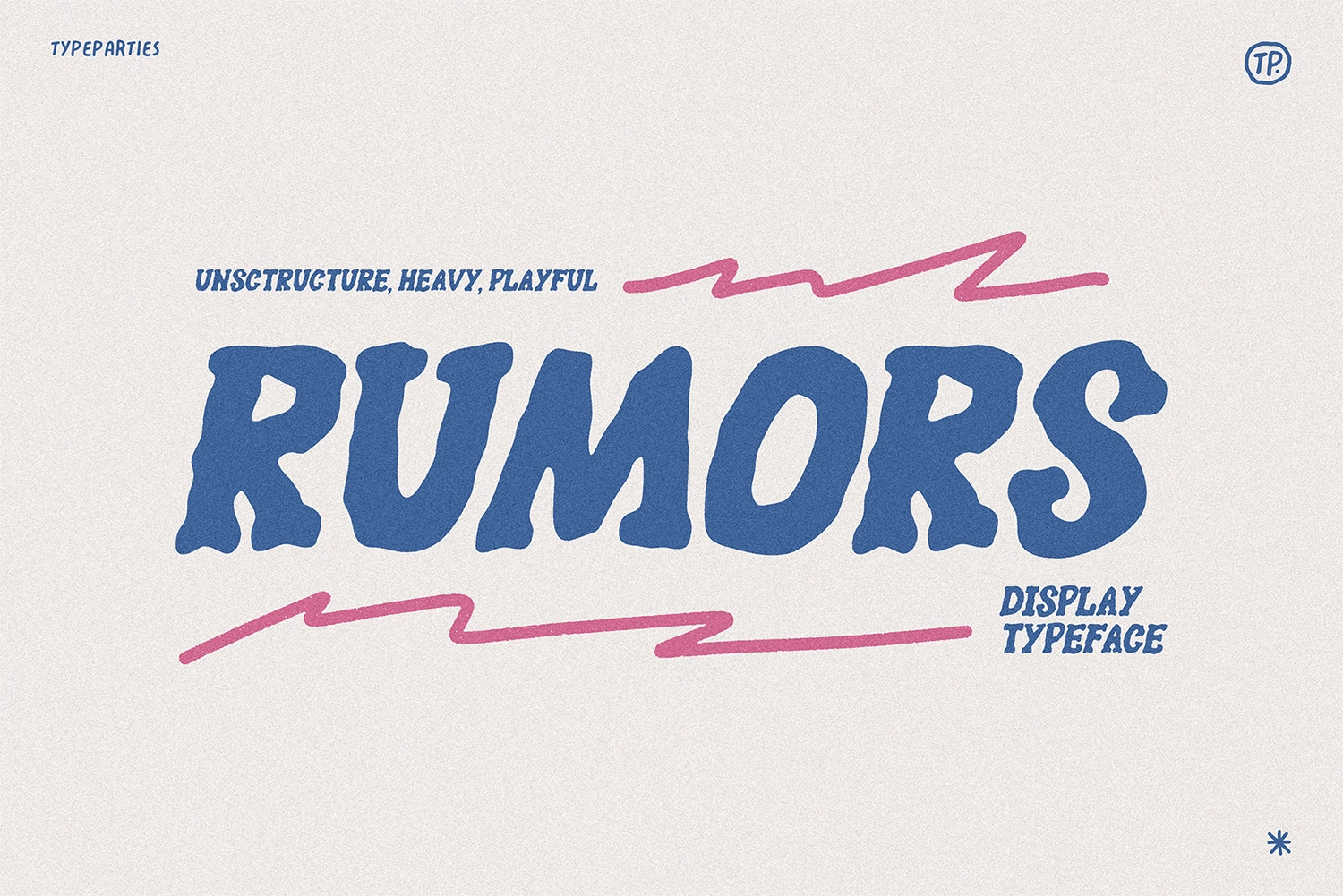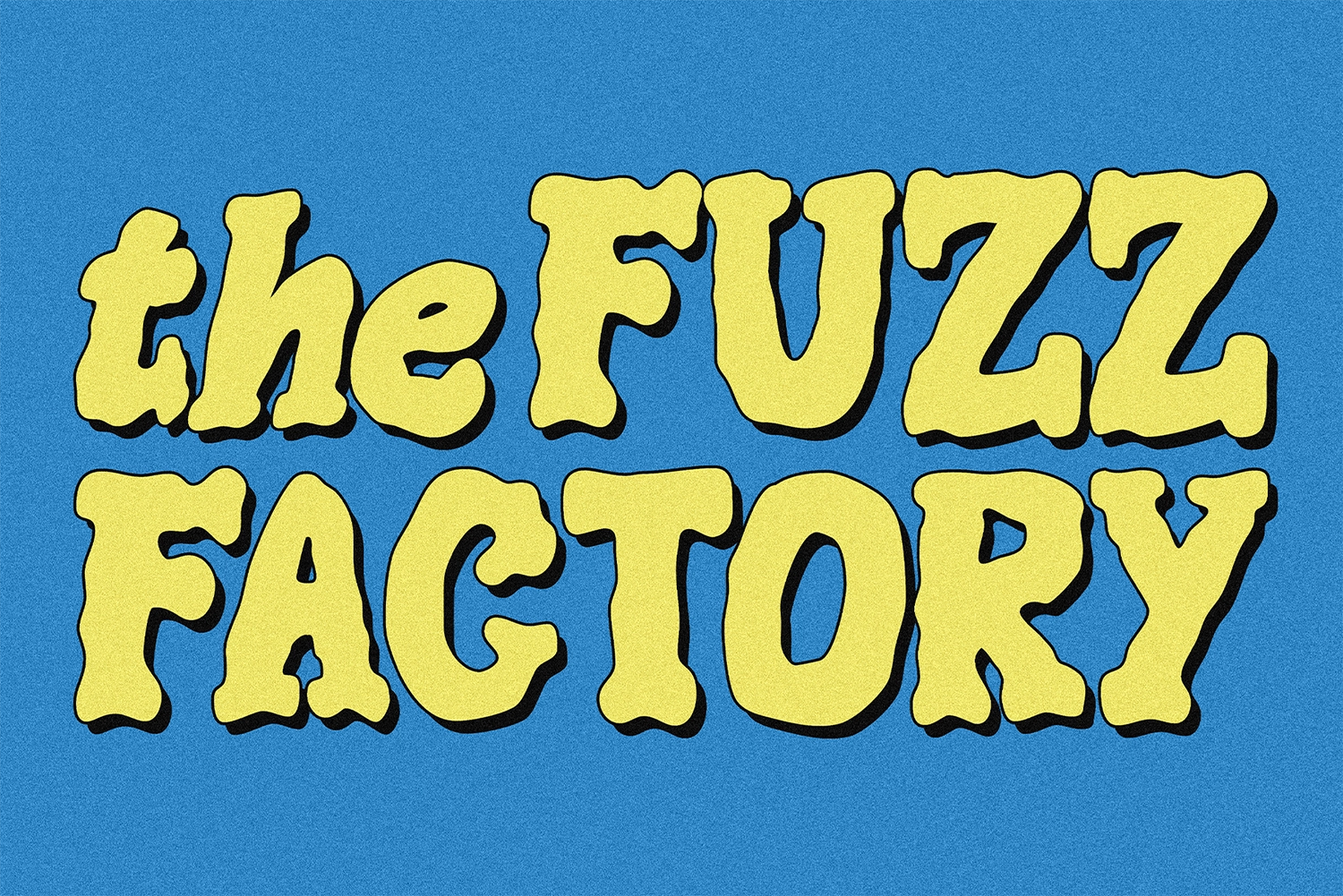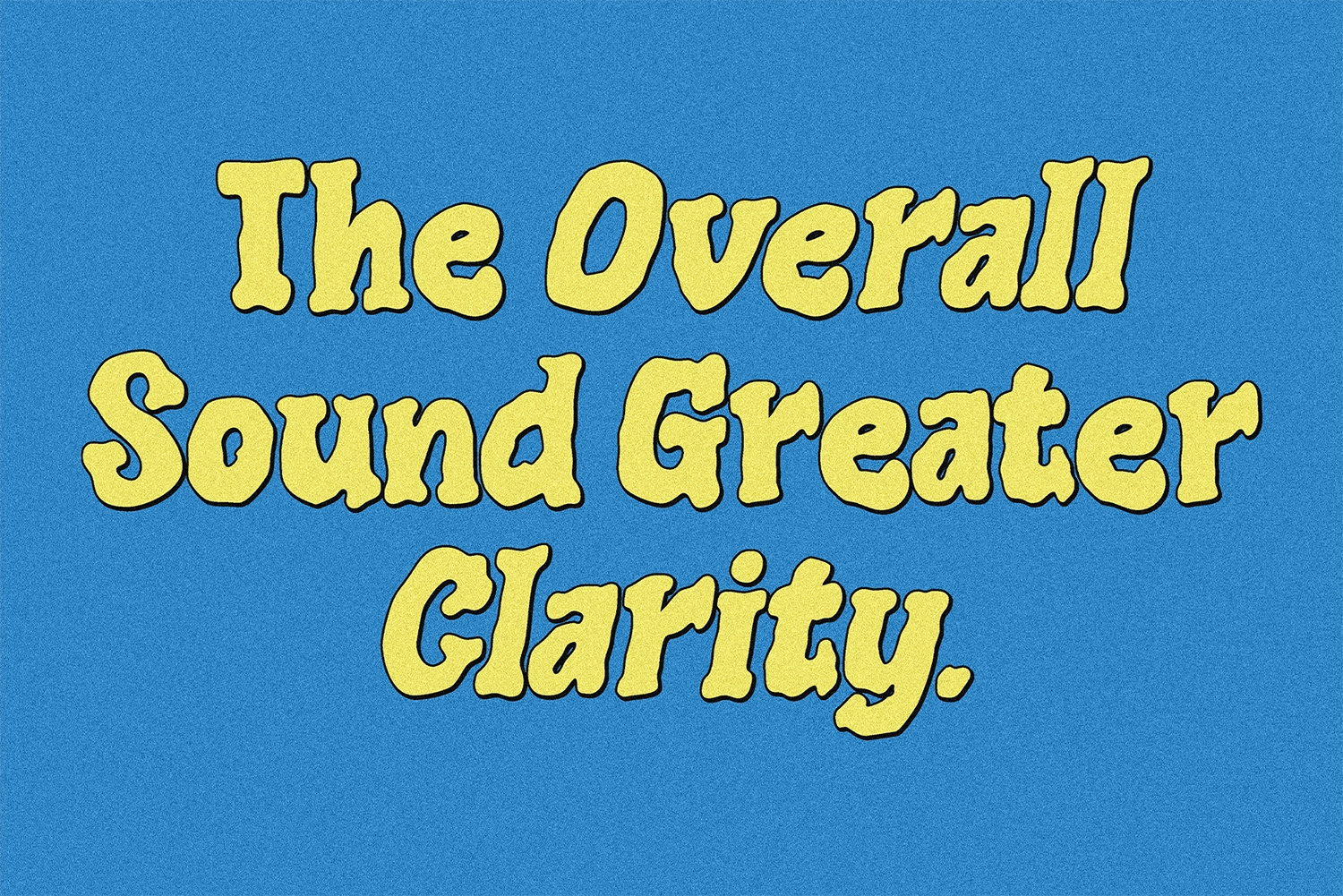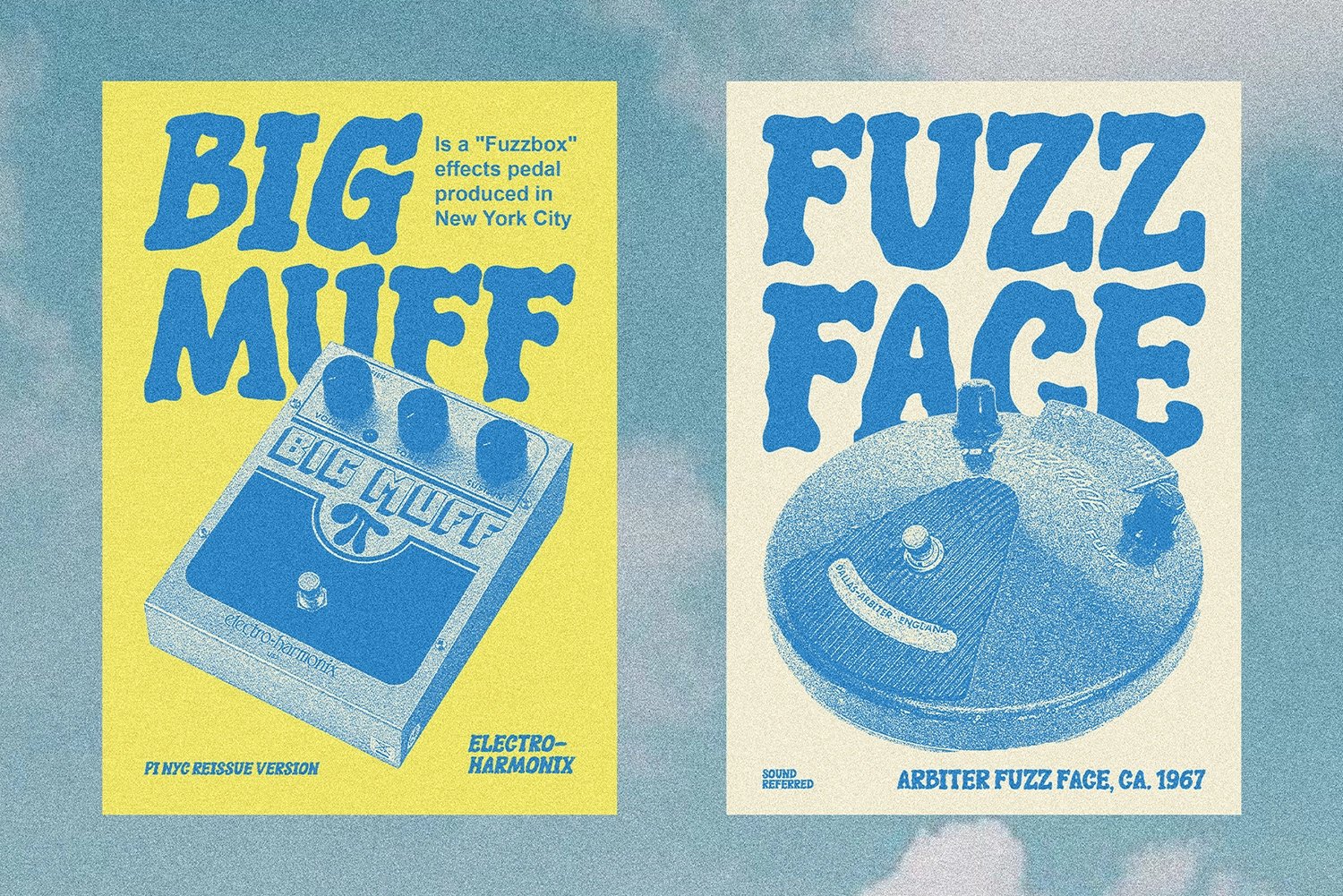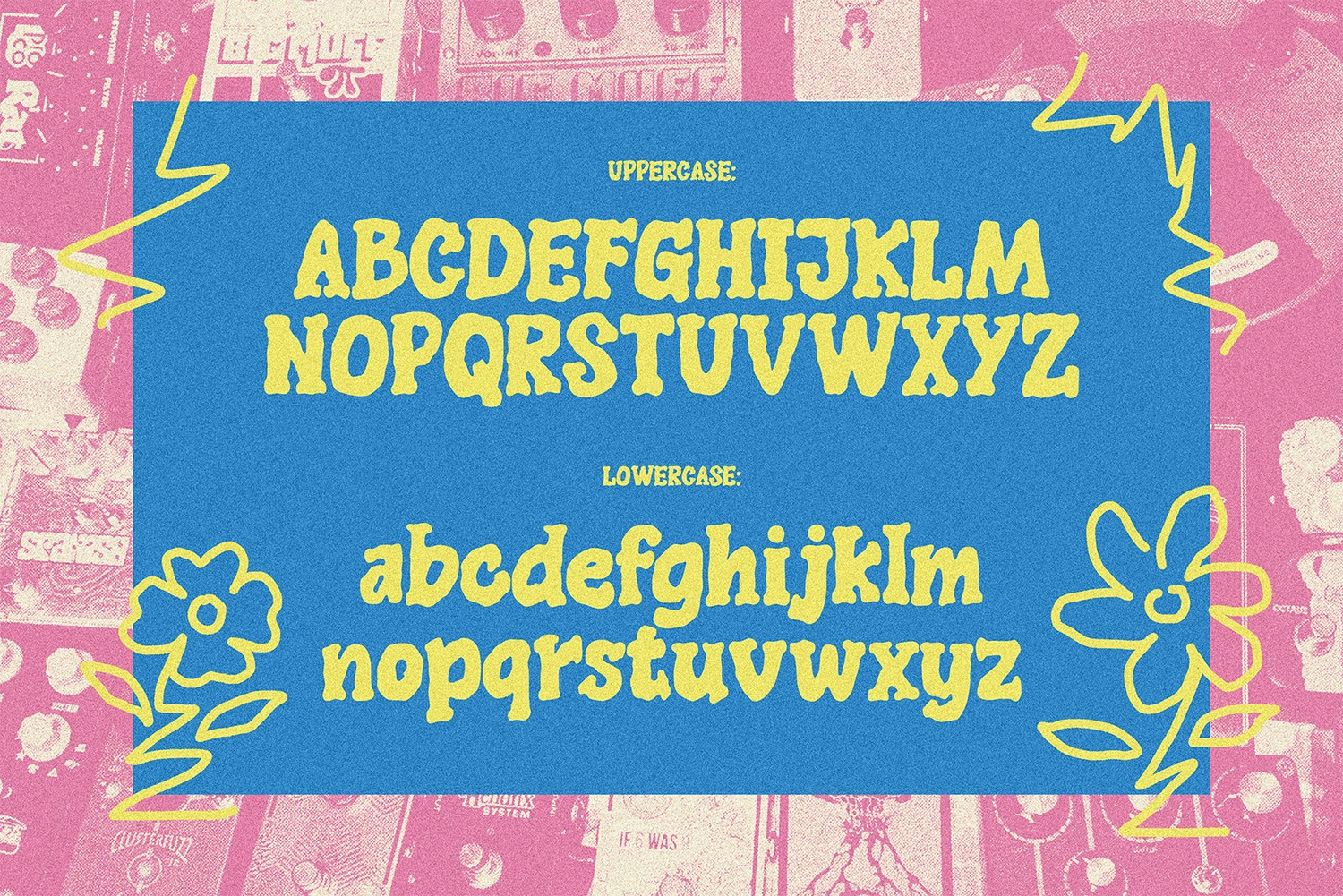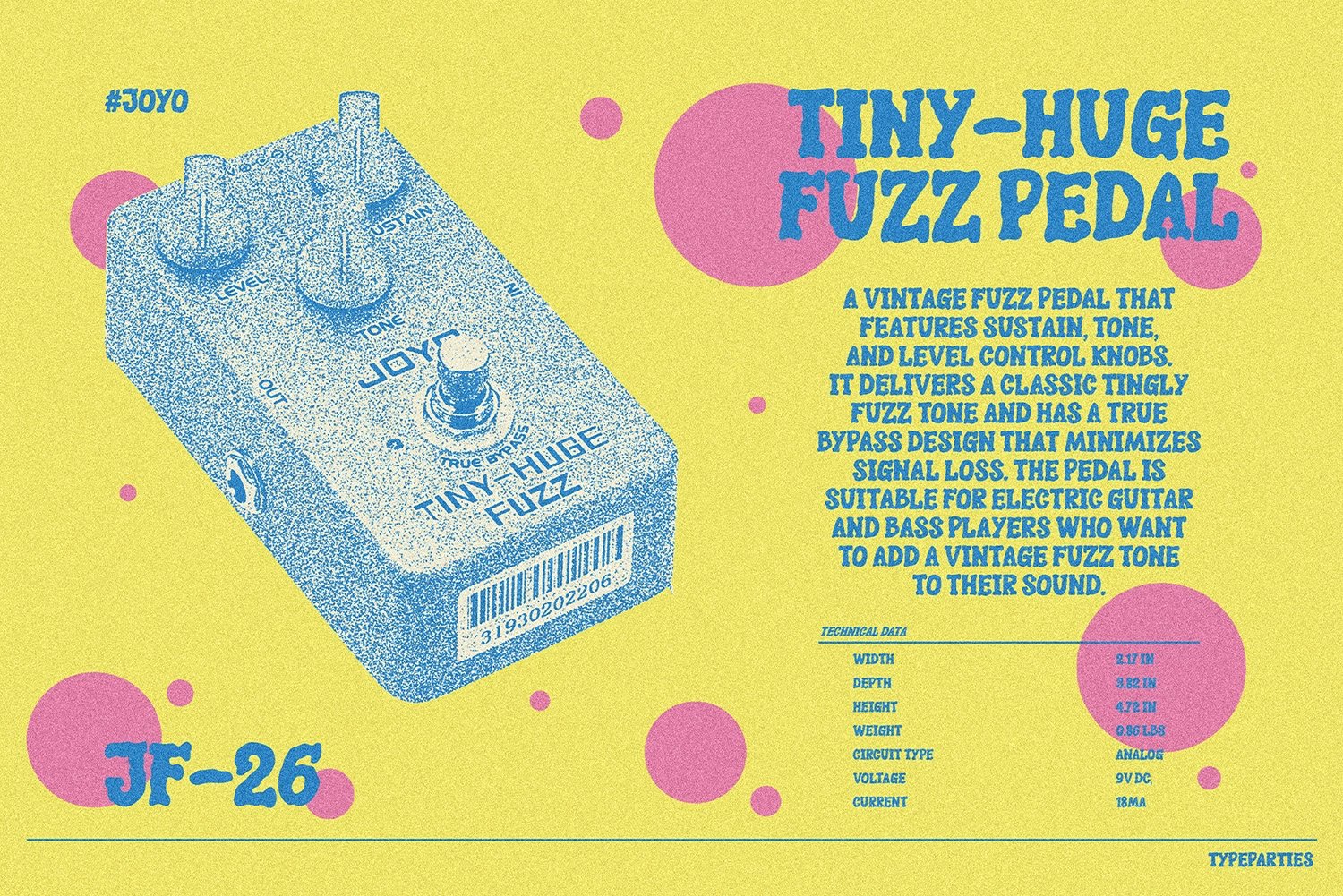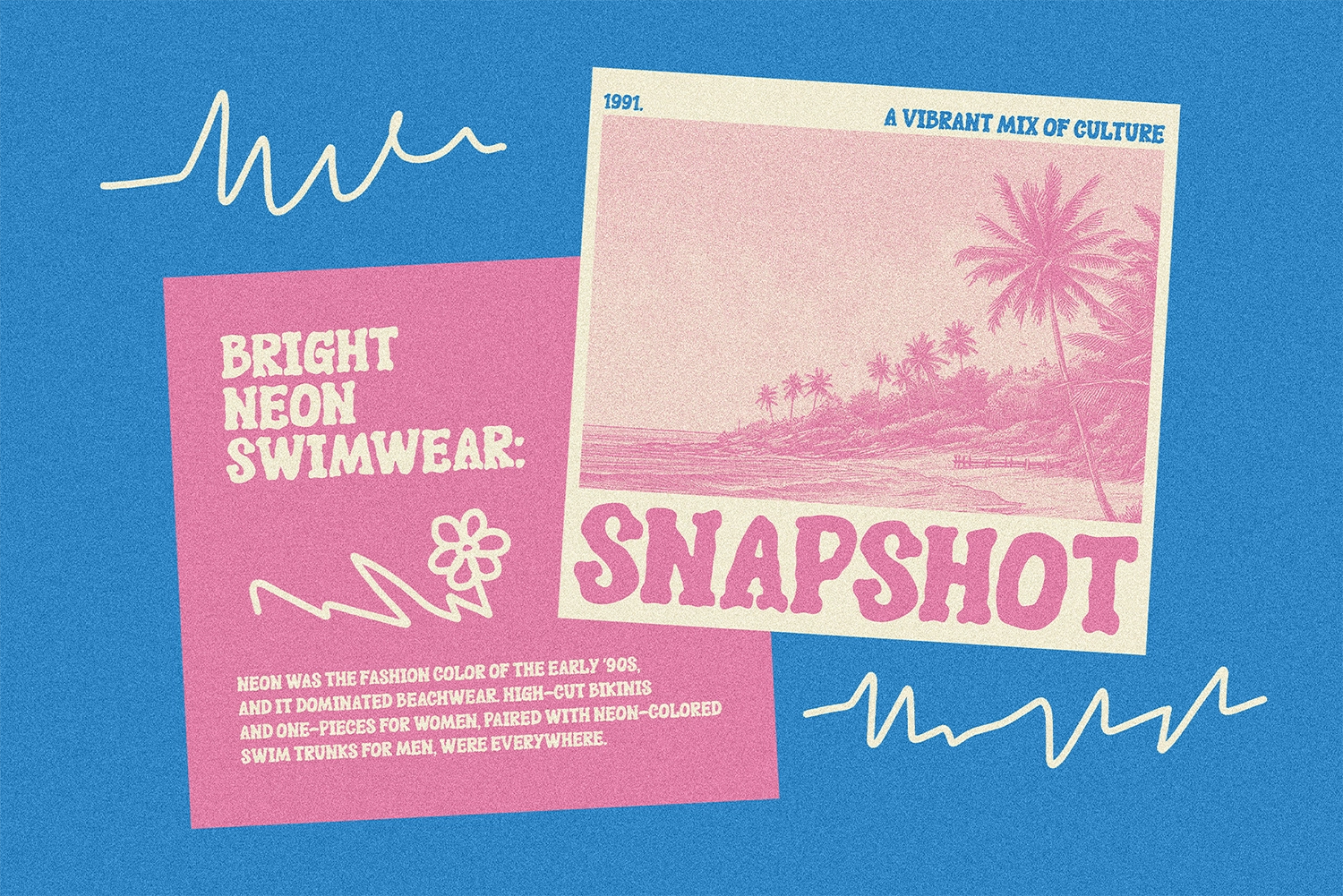
Rumors - Vintage Psychedelic Font designed to make a loud and unforgettable statement. Featuring thick, exaggerated letterforms and flowing wave-like curves, this typeface radiates retro energy and artistic freedom.
Inspired by classic 60s and 70s psychedelic poster art, Rumors delivers a dynamic sense of movement and fluidity. The wavy structure gives each word a playful rhythm, making it perfect for eye-catching headlines and expressive branding. Its chunky shapes and groovy personality ensure maximum visual impact in any large-scale design.
Whether you're creating posters, album covers, logos, merchandise, or social media graphics, Rumors brings a nostalgic yet fresh vibe that instantly grabs attention.
• Bold psychedelic display font
• Vintage 60s–70s inspired style
• Thick, wavy letterforms
• Strong visual impact
• Uppercase & lowercase
• Numerals & punctuation